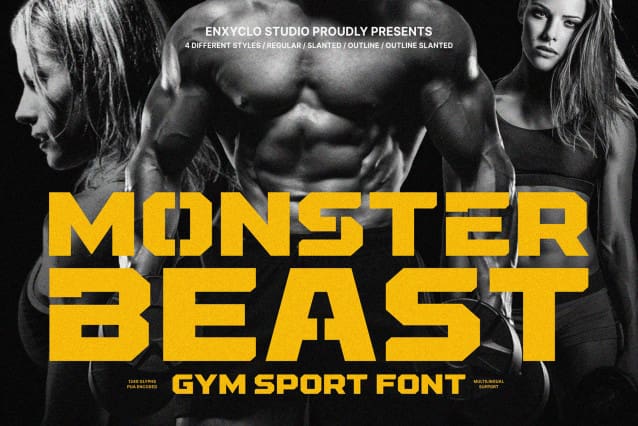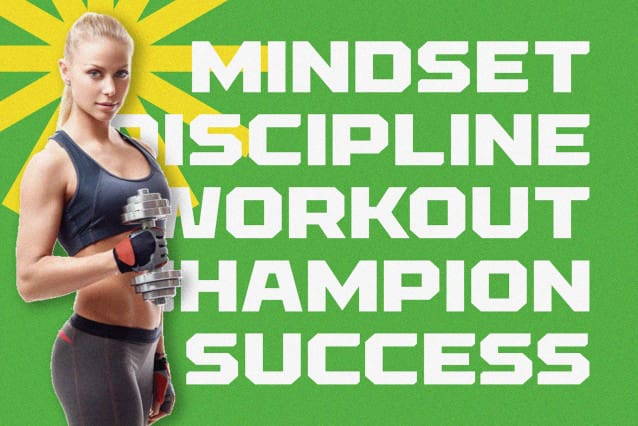
NCL Monster Beast Font
NCL MONSTER BEAST FONT is a gym sport font. Masterfully designed to become a true favorite, this font has the potential to bring each of your creative ideas to the highest level! It was purposely crafted to be used in large point sizes, although it doesn’t lose its magic in small point sizes. It is perfect for headline, billboard, magazines, website, titles, poster, branding, and logos. No matter the topic, this font will be an incredible asset to your fonts’ library, as it has the potential to elevate any creation. With this beautiful font, absolutely you can make your project stand out from the rest.